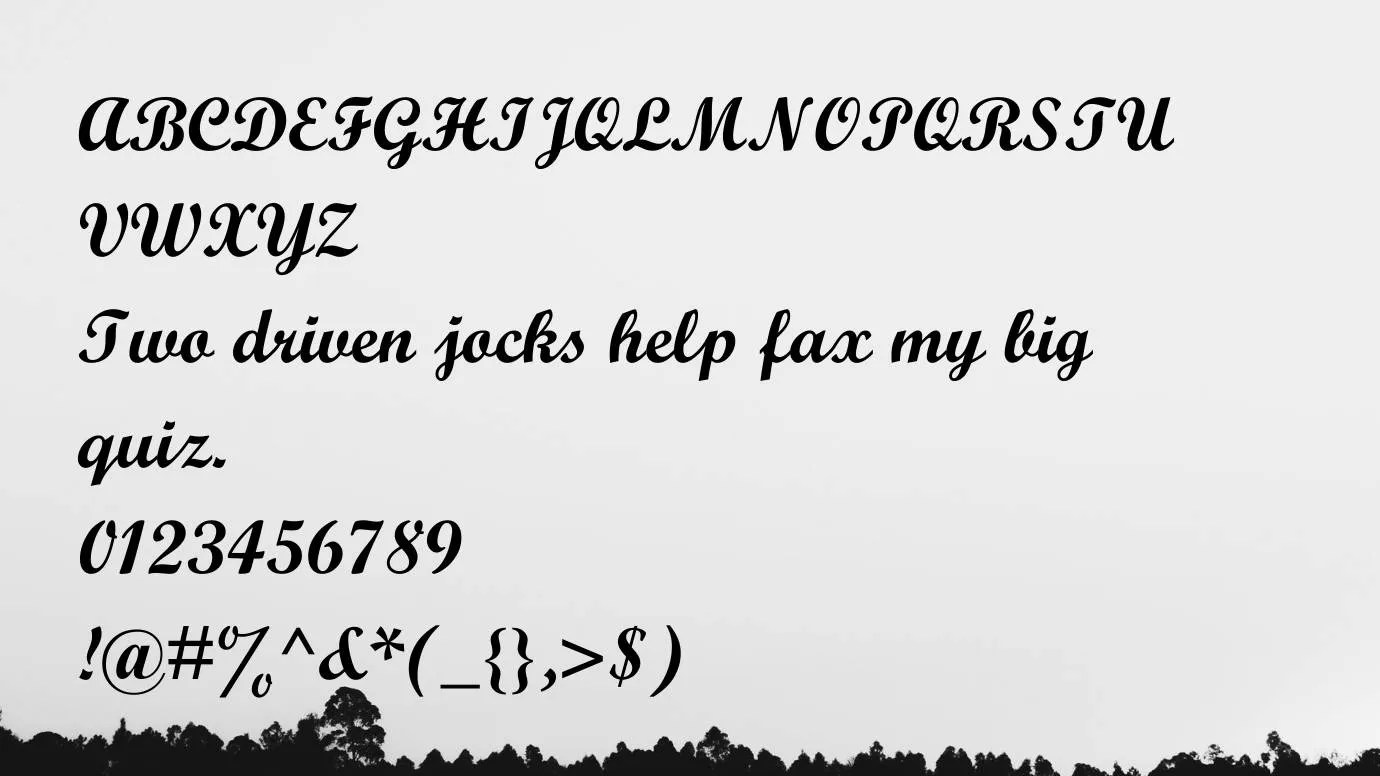
Coronet Bold Mt Font Free Download . Installable on pc, mac, linux, ios, and android platforms. Discover the free coronet mt bold font at free font download ! Bold fonts, heavy fonts, helvetica. Download coronet mt bold regular for free. Its bold and commanding presence makes it perfect for. The font family is coronet. Coronet bold is the perfect font for all your fun designs. Download free and premium fonts. Coronet bold is a striking and powerful font that exudes elegance and sophistication. Download the coronet® mt bold font for mac or windows in opentype, truetype or postscript format. Click to rate this post! Download coronet mt bold regulartruetype font. Fonts are in ttf, otf format and with direct download link and preview. Fontsplace is the best place to download coronet bold for free. Download 186,286 free fonts at ufonts.com
Coronet Bold Mt Font Free Download Free fonts by category, type, daily updates. Download coronet mt bold regulartruetype font. Bold fonts, heavy fonts, helvetica. Coronet bold is the perfect font for all your fun designs. Coronet bold is a striking and powerful font that exudes elegance and sophistication. Download 186,286 free fonts at ufonts.com Download coronet mt bold regular for free. Fontsplace is the best place to download coronet bold for free. Click to rate this post! Download free and premium fonts. Its bold and commanding presence makes it perfect for. The font family is coronet. Installable on pc, mac, linux, ios, and android platforms. Fonts are in ttf, otf format and with direct download link and preview. Free fonts by category, type, daily updates. Download the coronet® mt bold font for mac or windows in opentype, truetype or postscript format.
font Font Tr Coronet Bold Mt Font Free Download free and premium fonts. Click to rate this post! The font family is coronet. Coronet bold is a striking and powerful font that exudes elegance and sophistication. Fontsplace is the best place to download coronet bold for free. Bold fonts, heavy fonts, helvetica. Download coronet mt bold regular for free. Coronet bold is the perfect font for all your. Coronet Bold Mt Font Free Download.
Albertus MT Font Free Download Coronet Bold Mt Font Free Download 186,286 free fonts at ufonts.com Its bold and commanding presence makes it perfect for. Coronet bold is a striking and powerful font that exudes elegance and sophistication. Installable on pc, mac, linux, ios, and android platforms. The font family is coronet. Download coronet mt bold regular for free. Free fonts by category, type, daily updates. Download coronet mt bold. Coronet Bold Mt Font Free Download.
Engravers MT Font Free Download Free Fonts Like Coronet Bold Mt Font Free Download Bold fonts, heavy fonts, helvetica. Coronet bold is the perfect font for all your fun designs. Discover the free coronet mt bold font at free font download ! The font family is coronet. Installable on pc, mac, linux, ios, and android platforms. Download coronet mt bold regular for free. Fonts are in ttf, otf format and with direct download link. Coronet Bold Mt Font Free Download.
The Bold Font Free Download Free Fonts Coronet Bold Mt Font Free Download 186,286 free fonts at ufonts.com Installable on pc, mac, linux, ios, and android platforms. Download free and premium fonts. Fonts are in ttf, otf format and with direct download link and preview. Free fonts by category, type, daily updates. Download the coronet® mt bold font for mac or windows in opentype, truetype or postscript format. Fontsplace is the best. Coronet Bold Mt Font Free Download.
Tw Cen Mt Condensed Cyrillic Font Hot Sex Picture Coronet Bold Mt Font Free Download Bold fonts, heavy fonts, helvetica. Download coronet mt bold regular for free. Free fonts by category, type, daily updates. Installable on pc, mac, linux, ios, and android platforms. Download 186,286 free fonts at ufonts.com Download the coronet® mt bold font for mac or windows in opentype, truetype or postscript format. Click to rate this post! Its bold and commanding presence. Coronet Bold Mt Font Free Download.